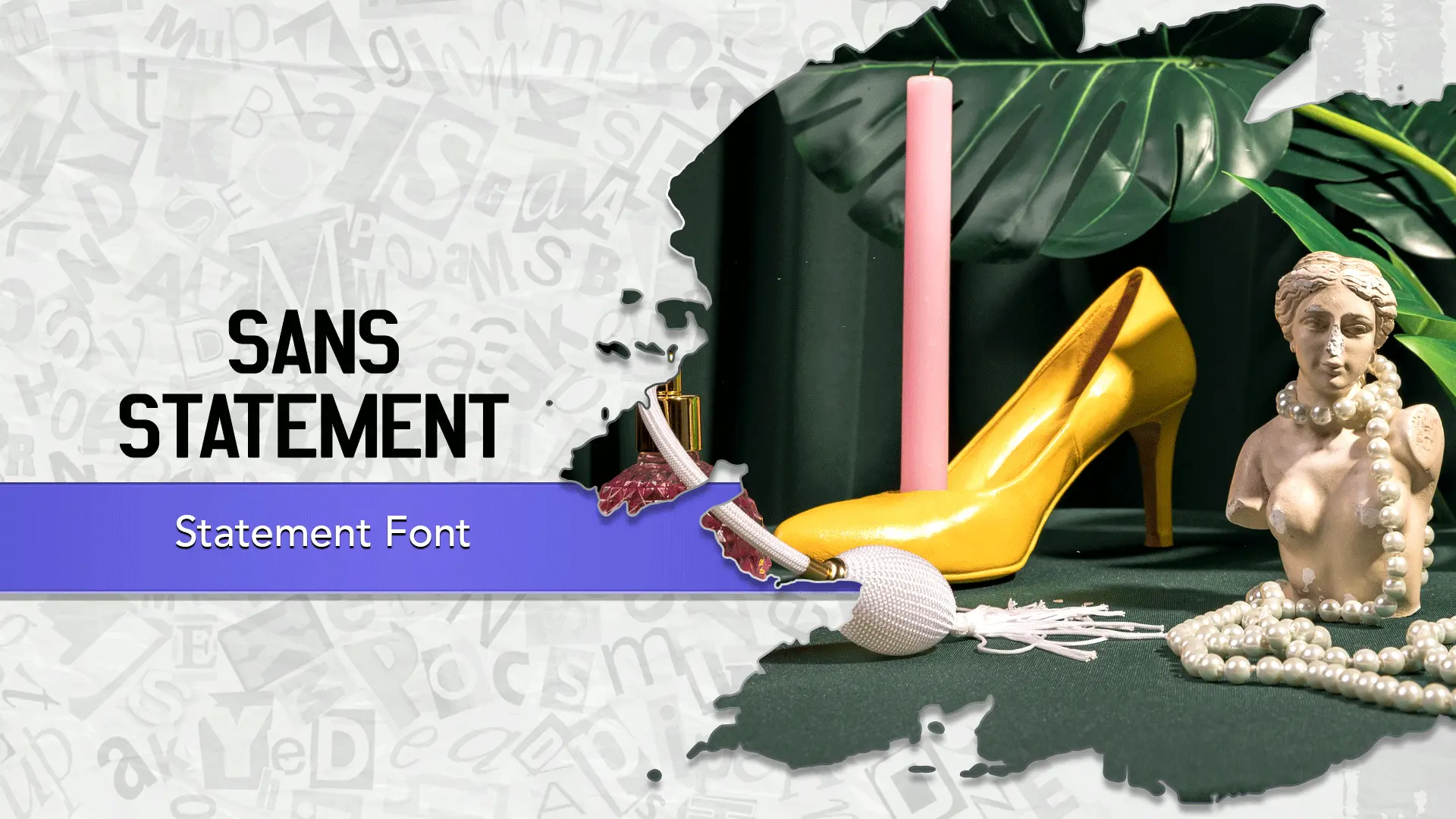
The Statement font family may be ideal for you if you enjoy working on an artistic design project. The lively, expressive look of this typeface, which was created by Steve Gardner, makes it ideal for High-Impact Headlines and Titles(Website Headers and Banners, Magazine Covers and Spreads especially for fashion, art and luxury publications), Editorial Design(Pull Quotes, Chapter Titles or Section Breaks) and other light-hearted visual projects.
Regular, Regular are the three primary font styles of the Statement font family. You may build dynamic, visually appealing text layouts with the distinct flair that each style offers. With crisp, readable lines and a relaxed tone.